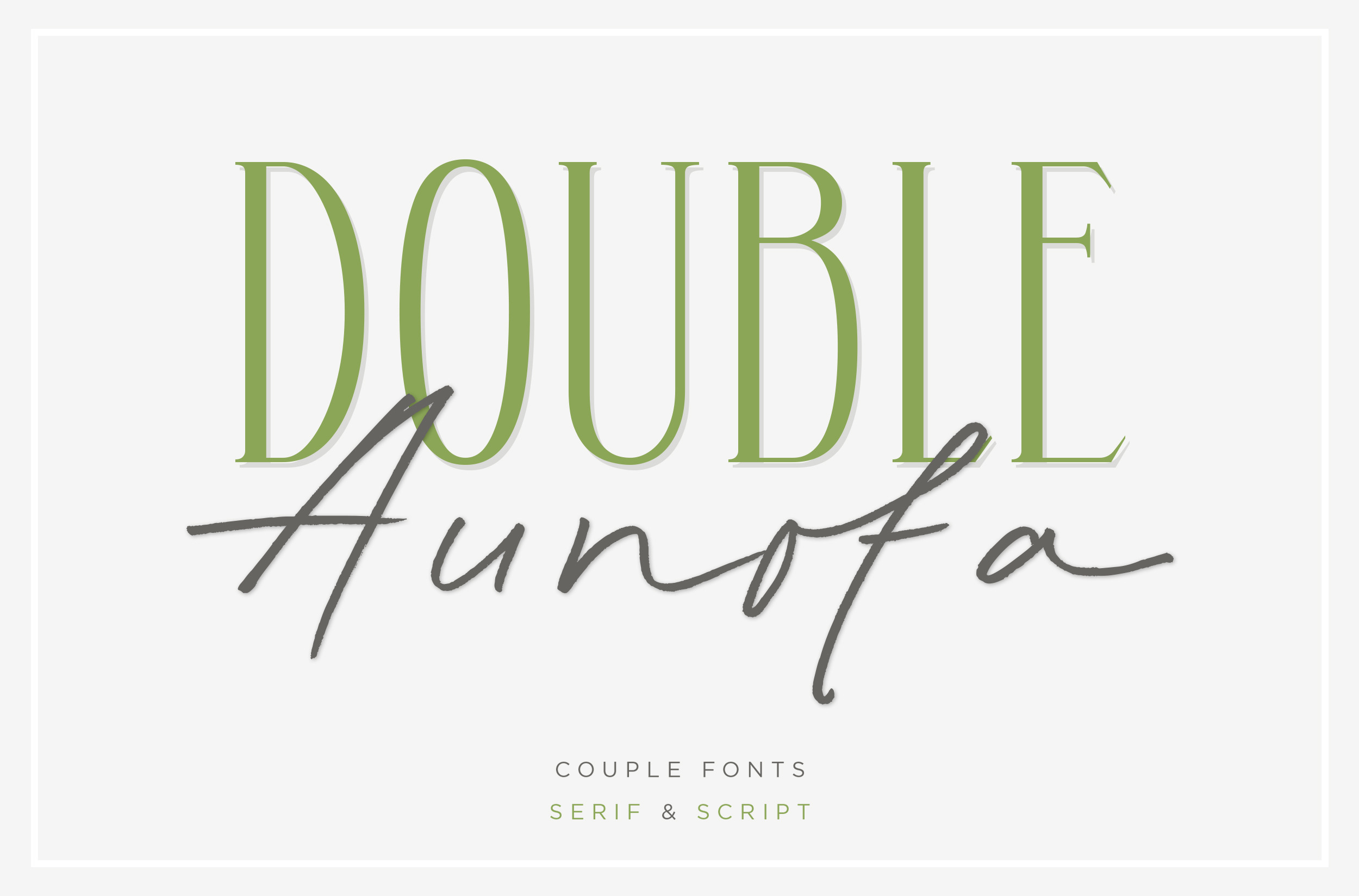
Double Aunofa - Couple Font
Double Aunofa, a couple of beautiful fonts with the approach to luxury branding and classy feels. Comes in clean tall serif and handwritten script style. Perfectly fit for your simple branding, logo, classy visual identity, you name it.